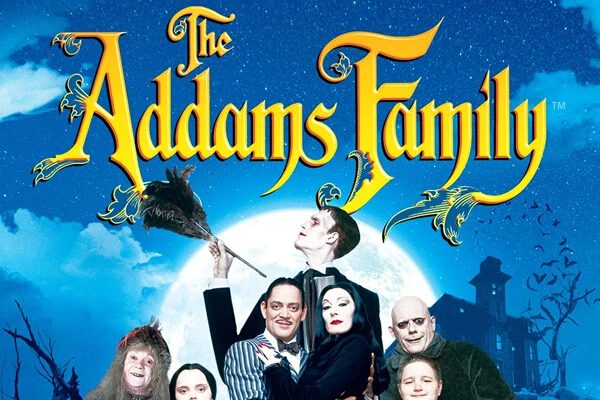
The Addams Family font that is used in the title of the movie logo is a typeface by the name of Fiddums Family. This gothic style font was created by Jeff Bell and is sometimes also known as the Wednesday Addams font.